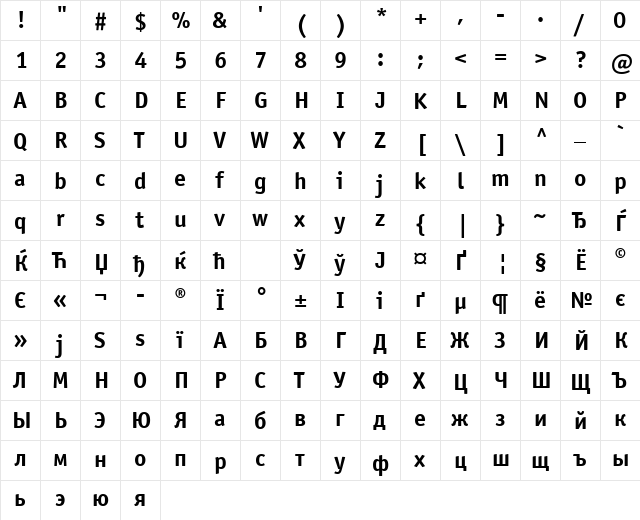
OfficinaSansWinCTT Bold
Design Context for OfficinaSansWinCTT Typeface
OfficinaSansWinCTT offers clean, dependable letterforms without strong stylistic allegiance, making it a practical choice for designers who need flexibility. The heavy weight commands attention and anchors typographic hierarchies.